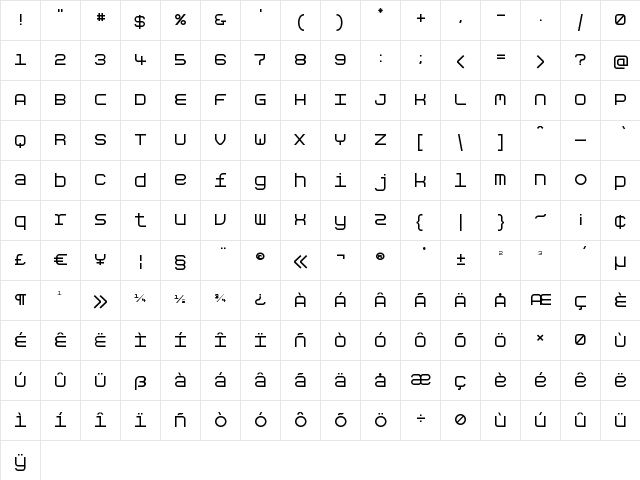
Aspirin Regular
Design Context for Aspirin Typeface
Aspirin offers clean, dependable letterforms without strong stylistic allegiance, making it a practical choice for designers who need flexibility.
Pro Tip: Pair Aspirin with a font of contrasting weight or personality to build a more expressive typographic hierarchy.